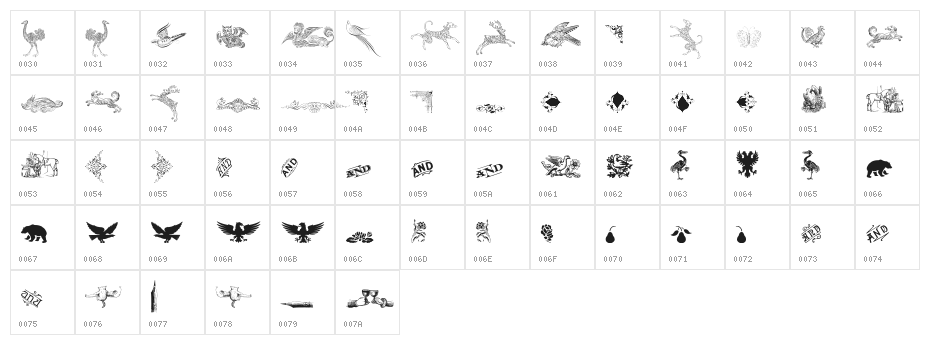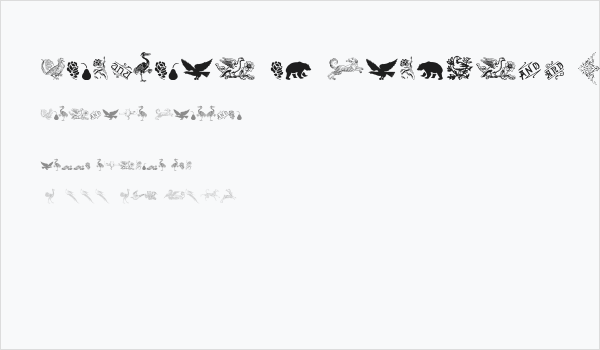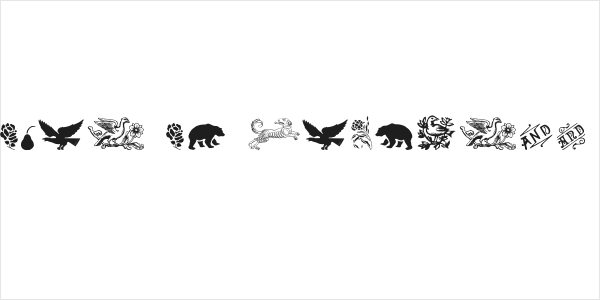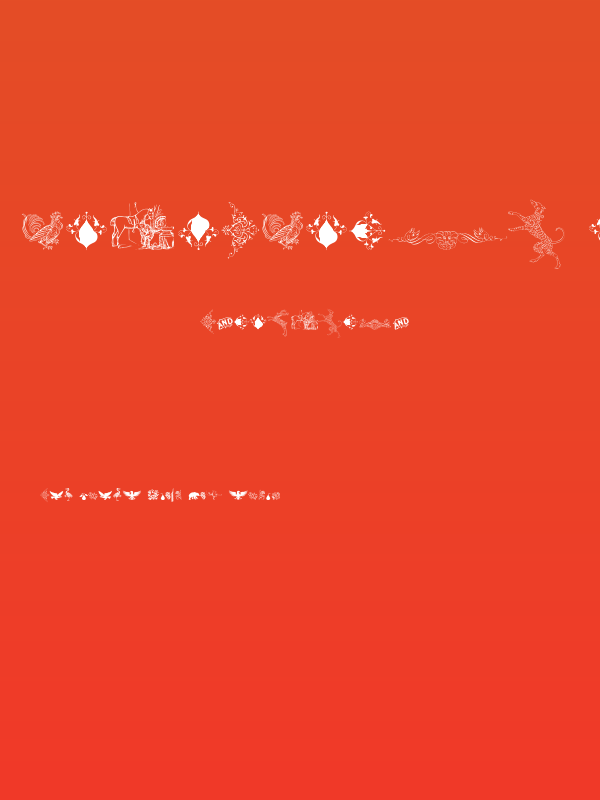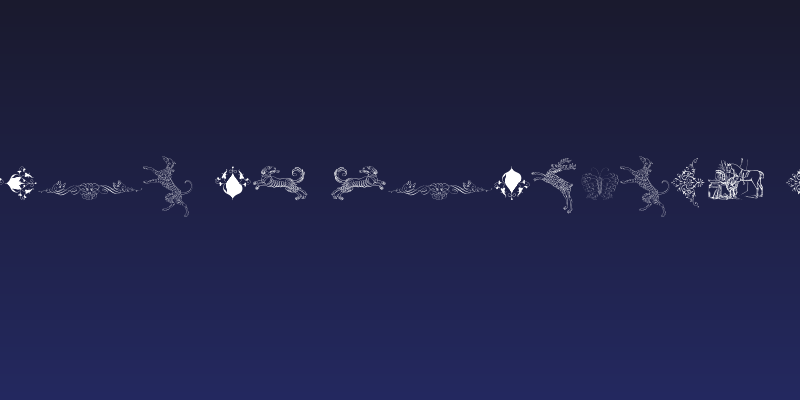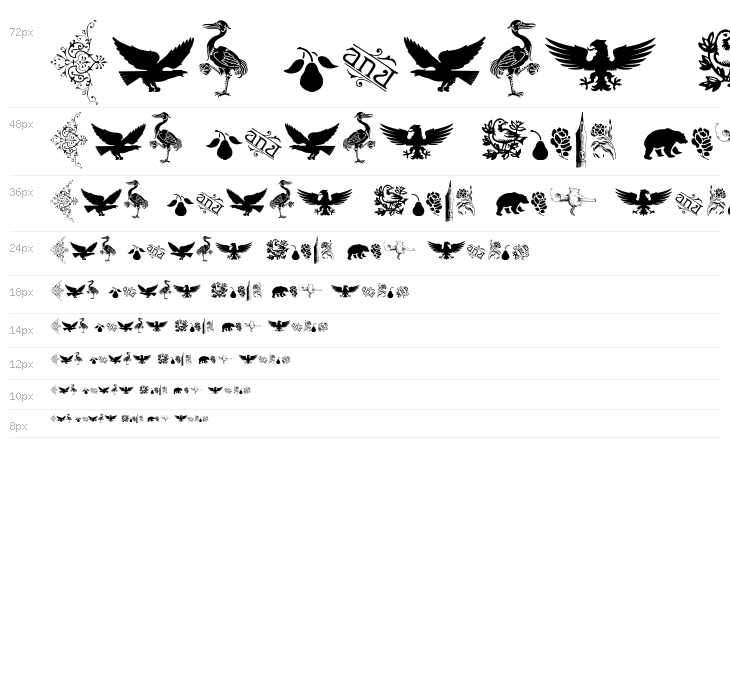
Cornucopia of Dingbats Three Font
Cornucopia of Dingbats Three Description
This collection features a diverse array of intricate and decorative dingbats, showcasing a variety of ornate designs. The elements include floral motifs, mythical creatures, animals, and decorative borders. Each symbol is crafted with attention to detail, offering a vintage and artistic flair. The designs range from elegant swirls and flourishes to more complex illustrations of animals and mythical figures. The collection also includes stylized text elements, such as the word 'AND' in various decorative styles. These dingbats are perfect for adding a touch of elegance and creativity to any project, providing a unique and artistic aesthetic.
Overall StyleVintage
Use CaseDecorative elements, Artistic embellishments
Proposed ProjectsIdeal for invitations, decorative borders, artistic projects, and vintage-themed designs.